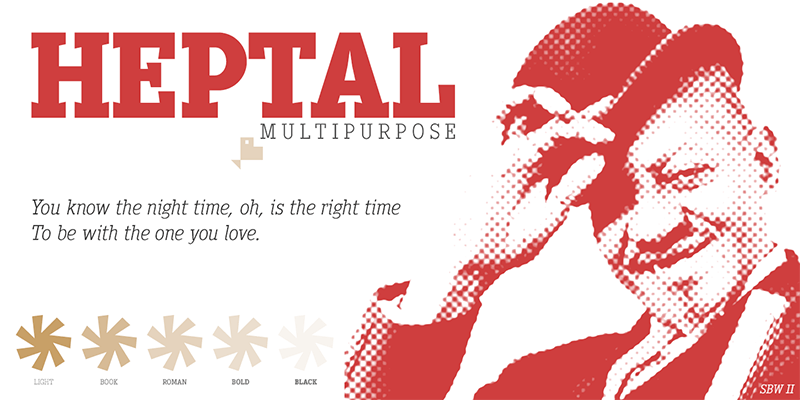
Font name: | Heptal |
- Heptal is a typeface family with five weights including true italics. The geometry of the characters is neo-gothic and the serifs are polygonal concave or inverted Tuscan. - These fonts have a wide table of characters with support for all the languages derived from Latin. - Heptal fonts offer a complete set of lowercase alternatives and advanced open type functions. - The proportions, the metrics and the Kerning are meticulously configured so that the texts are shown fluid and the graphic stain is compensated. ======================== FULL VERSIONS & COMMERCIAL LICENSES: https://defharo.com/fonts/heptal-serif-inverted/ |